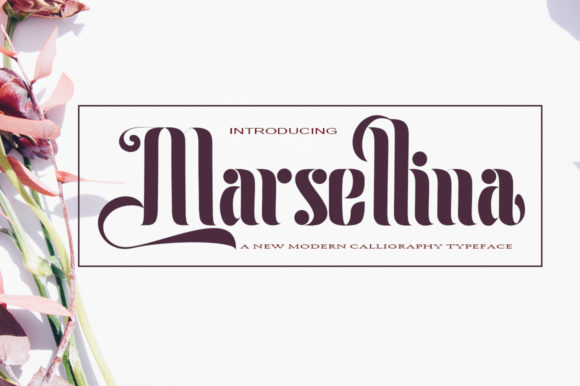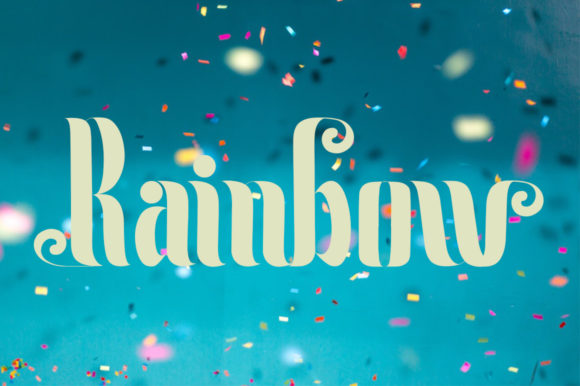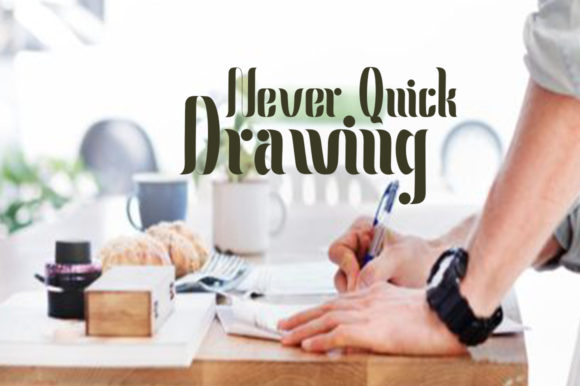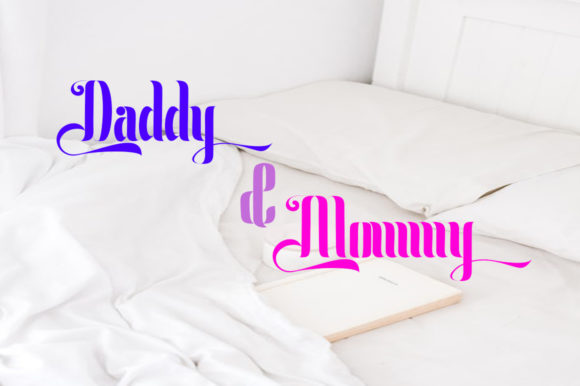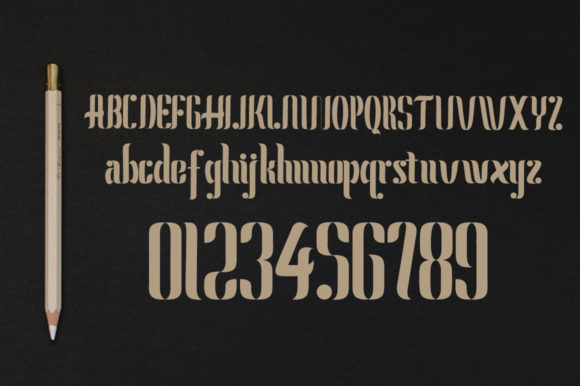
Marsellina Font
About Marsellina Font
Marsellina is a fun and charming handwritten font with heaps of personality! Fall in love with its classic appeal.